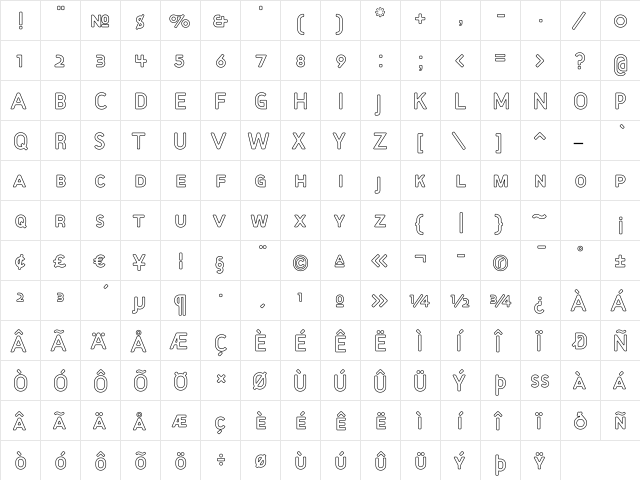
TargetOpen Small Caps Regular
Design Context for TargetOpen Small Caps Typeface
TargetOpen Small Caps takes a measured approach to typography — its balanced proportions and neutral character make it a reliable workhorse for both digital and print work.